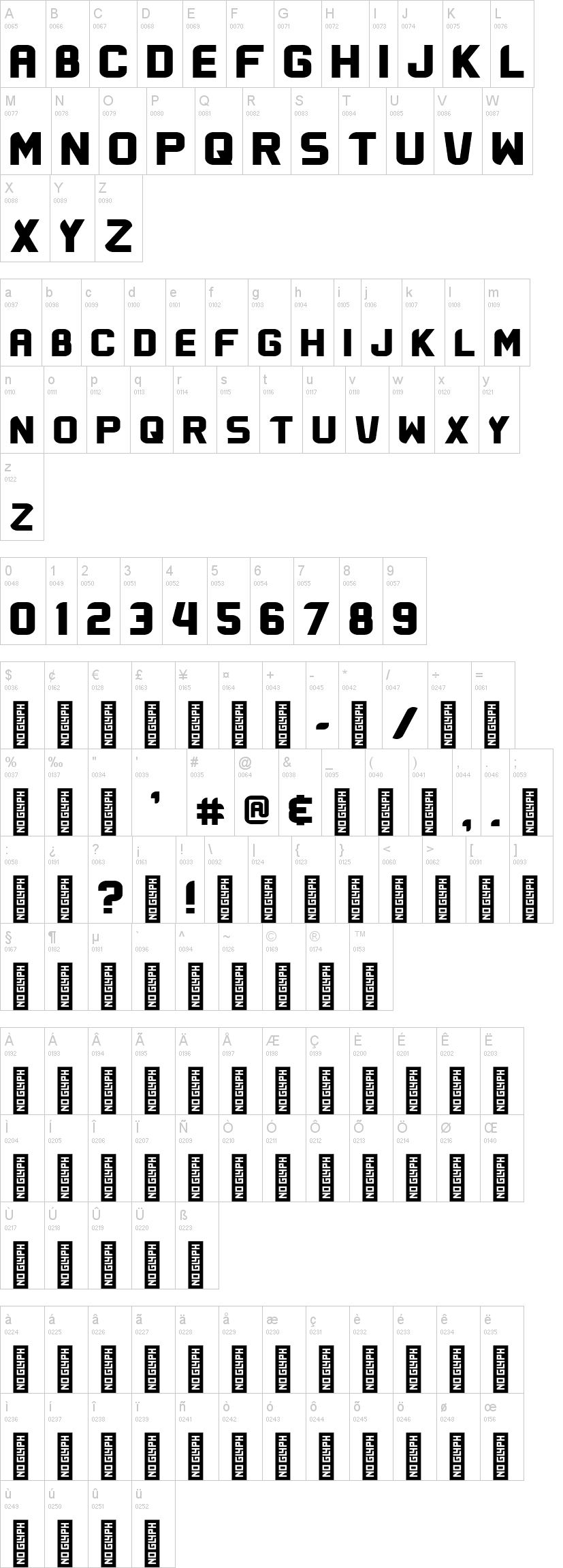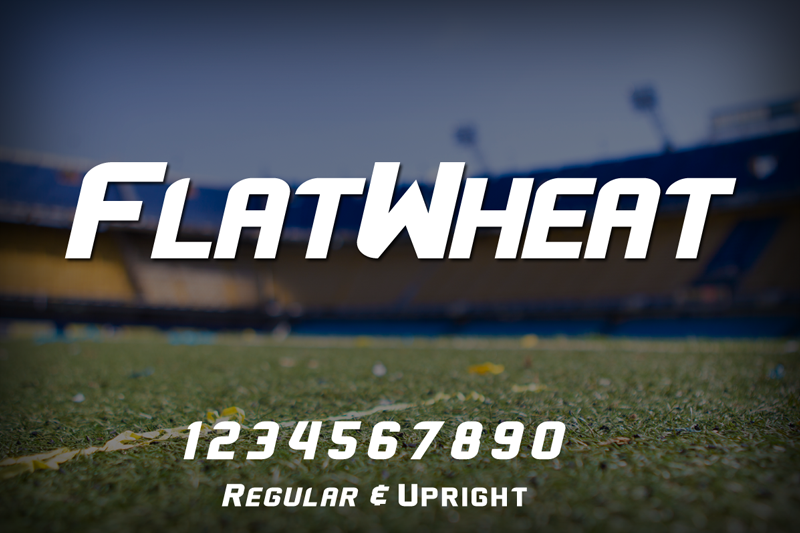
Flatwheat-Regular.ttfNote of the authorSports inspired font, with a regular and upright version.
Now with numbers, punctuation, and some symbols
More Updates to come.